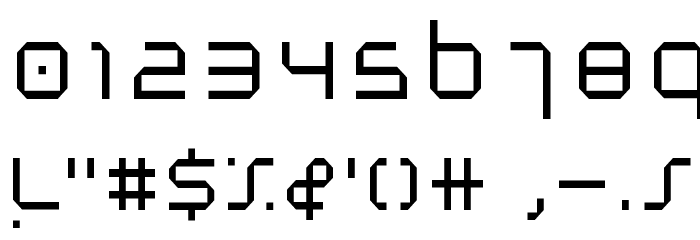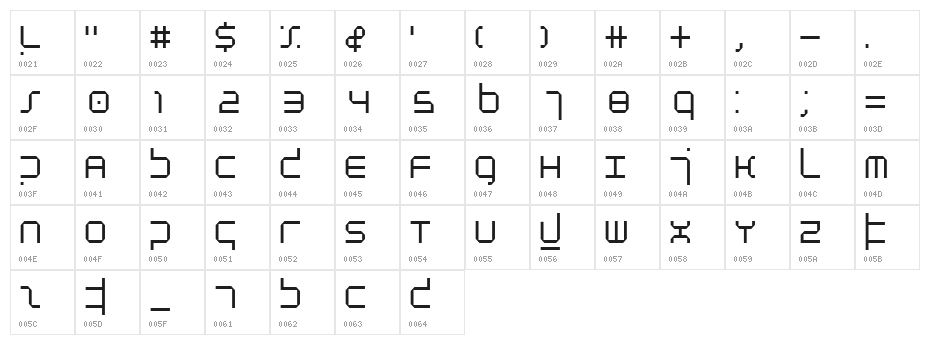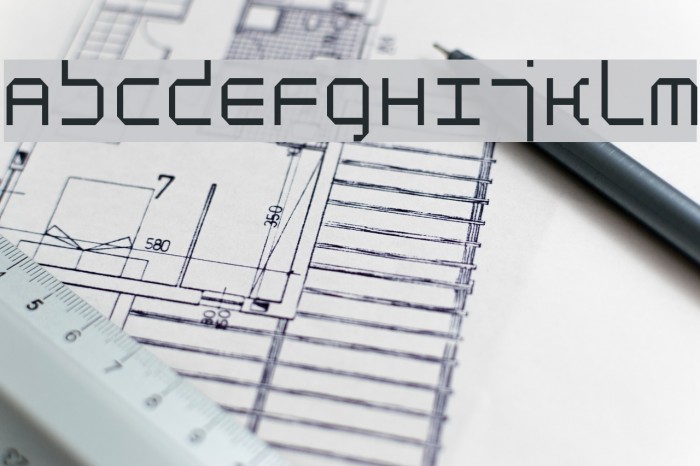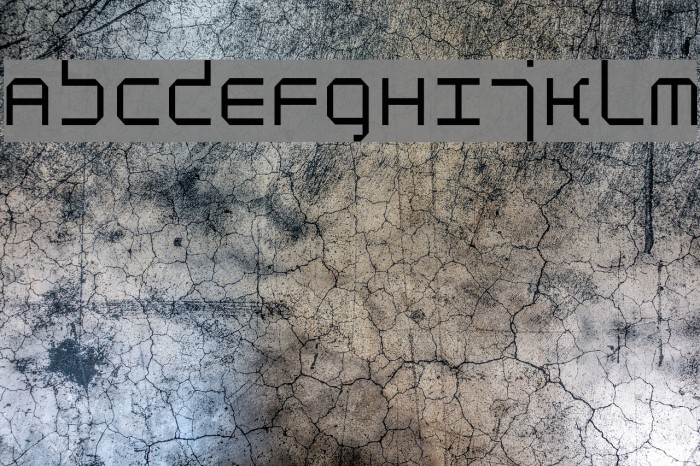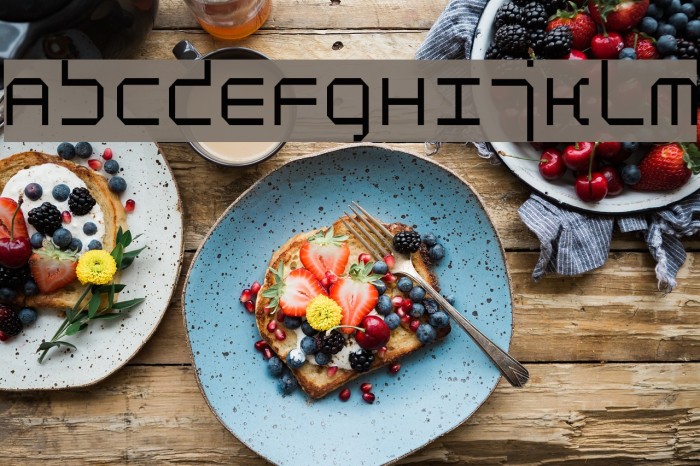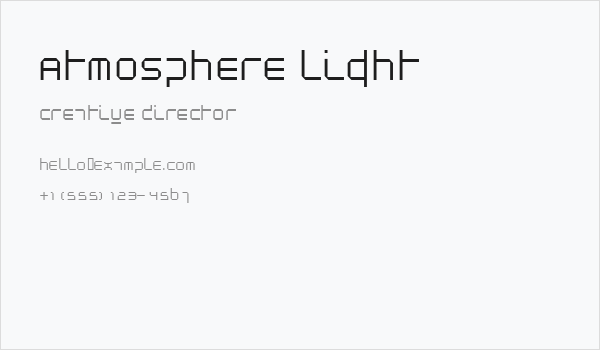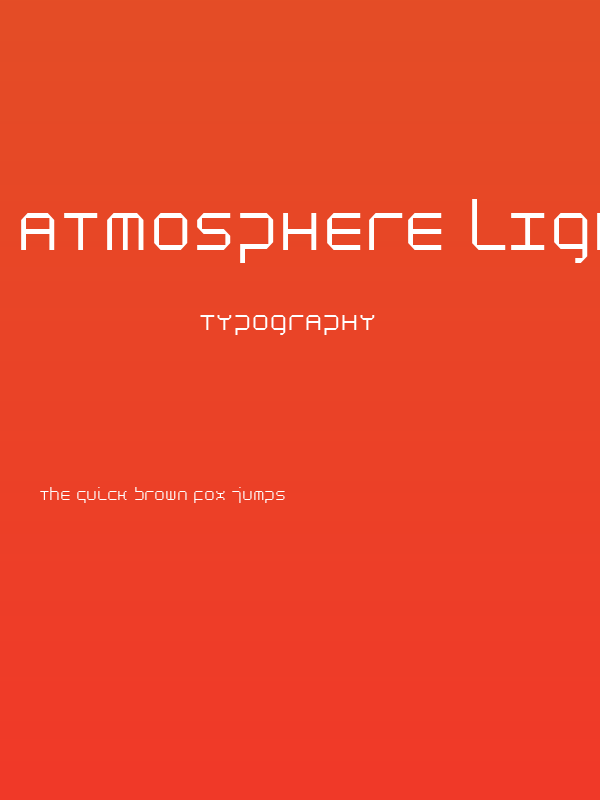
Atmosphere Light Font
Atmosphere Light Description
This font features a modern, geometric design with a distinct digital feel. Each character is constructed with clean, straight lines and sharp angles, giving it a futuristic and technical appearance. The uniformity in stroke width across all characters contributes to its sleek and minimalist aesthetic. The uppercase and lowercase letters maintain a consistent style, with subtle variations that enhance readability. The numerals and special characters are designed to match the overall geometric theme, ensuring a cohesive look throughout. This font is ideal for projects that require a contemporary and innovative touch.
| Use Case | Headlines, Logos, Digital Interfaces |
| Proposed Projects | Ideal for tech branding, digital interfaces, modern posters, and innovative product packaging. |